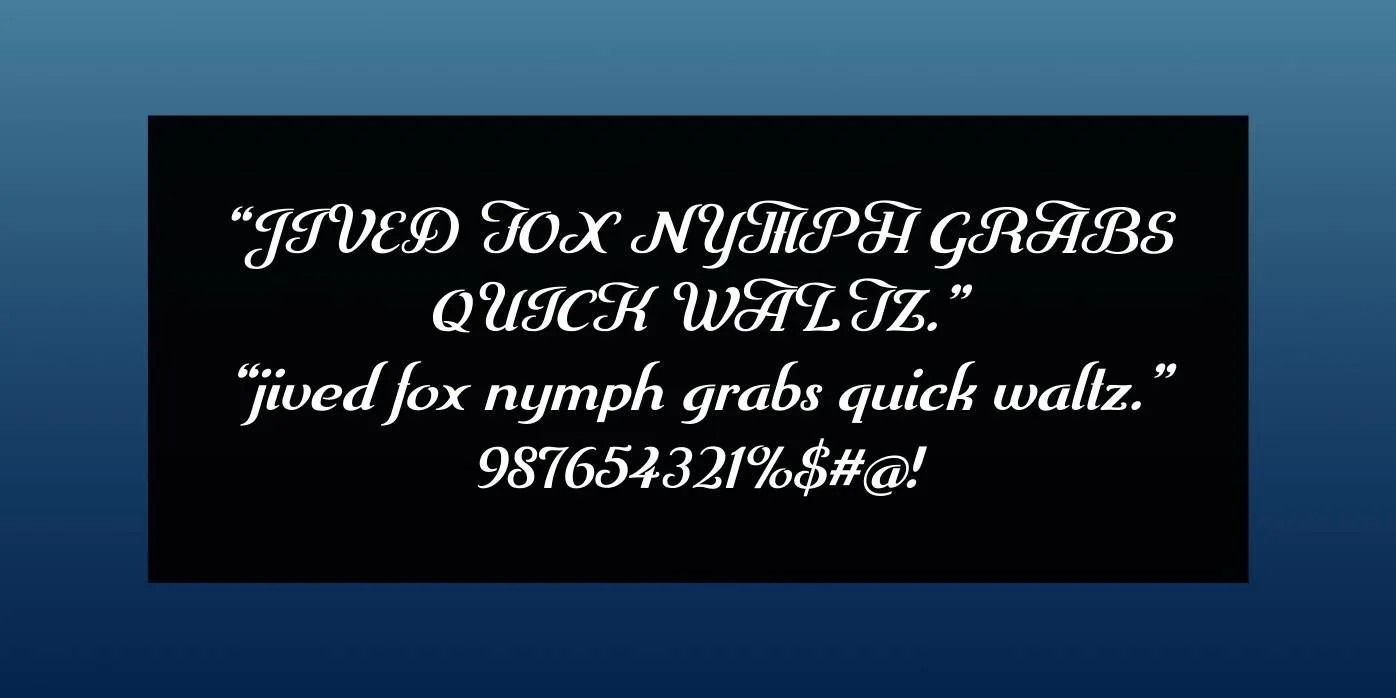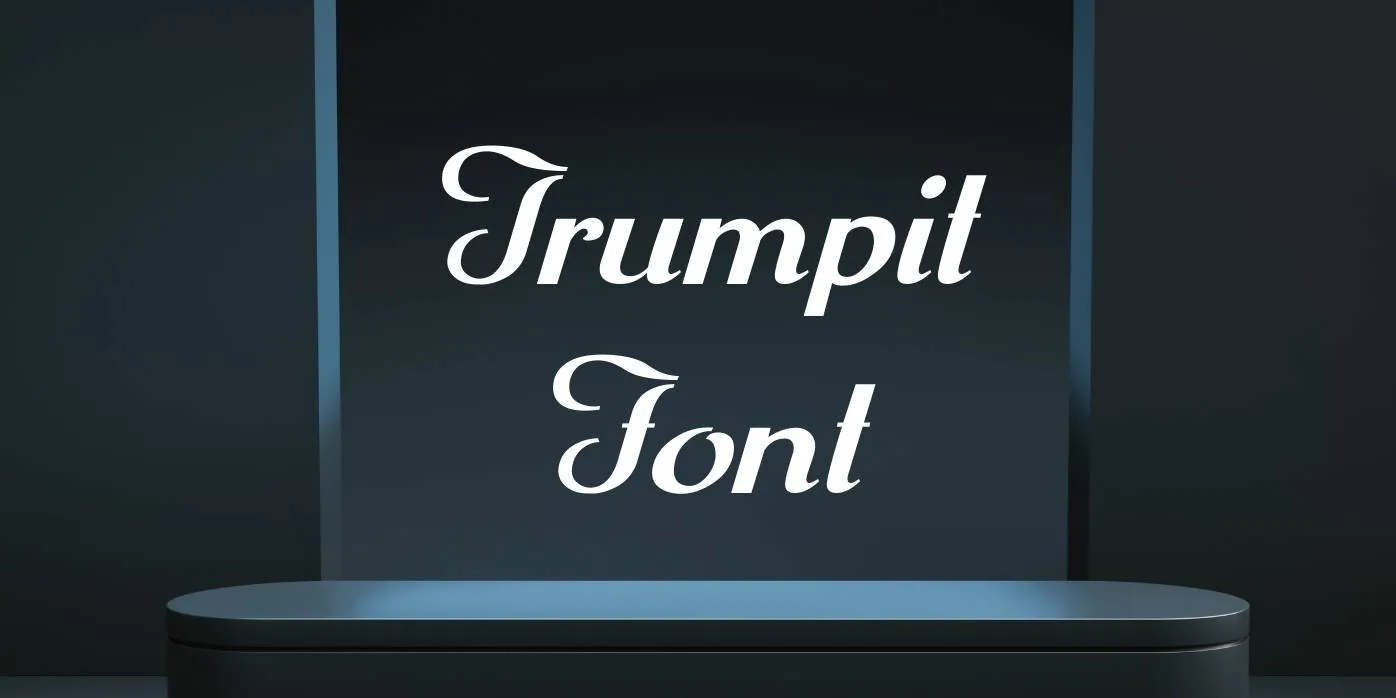
Trumpit Font
Trumpit Font is a script typeface designed by Type Associates in 2017. The design is based on the lettering of United States President Donald Trump. It was created to be used for political campaigns and other pro-Trump messaging. The font includes three weights (light, regular, and bold), each with a matching italic version.
It also includes a set of small caps. The glyph of this font features both upper- and lowercase letters, as well as numbers and punctuation marks. The lightweight is the most delicate of the three weights. It is best used for short texts, such as headlines or taglines.